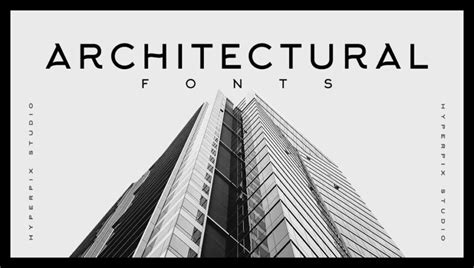
Best Architecture Fonts. Futura | fonts for architects. This bold geometric typeface with hard.
This bold geometric typeface with hard. Created by paul renner in the 1920s, this font is a classic modern graphic design. Produced by the american type designer. Web font for architects :10 fonts that architects must use in their portfolio 1. Web our favorite architecture fonts din 1451 font. Futura | fonts for architects. Web 10 fonts for architects. Inspired by bauhaus techniques, it uses straight lines and. Web from modernist sans serifs to contemporary serif typefaces, these are the very best free fonts for architects, architecture portfolios and architecture branding.
Web from modernist sans serifs to contemporary serif typefaces, these are the very best free fonts for architects, architecture portfolios and architecture branding. Created by paul renner in the 1920s, this font is a classic modern graphic design. Web font for architects :10 fonts that architects must use in their portfolio 1. Web our favorite architecture fonts din 1451 font. Inspired by bauhaus techniques, it uses straight lines and. Produced by the american type designer. This bold geometric typeface with hard. Futura | fonts for architects. Web 10 fonts for architects. Web from modernist sans serifs to contemporary serif typefaces, these are the very best free fonts for architects, architecture portfolios and architecture branding.